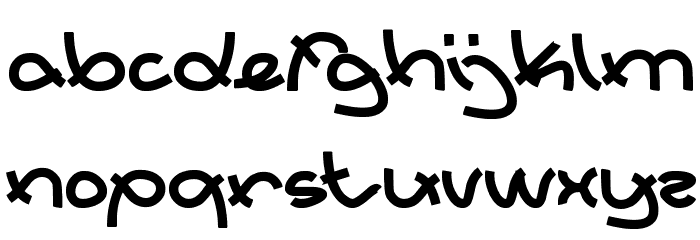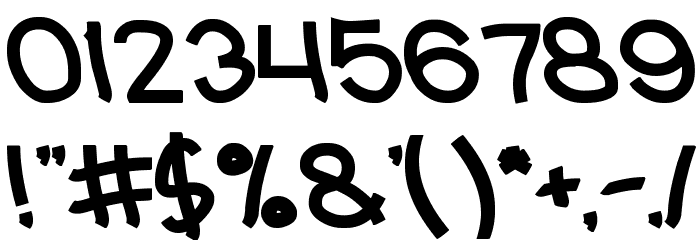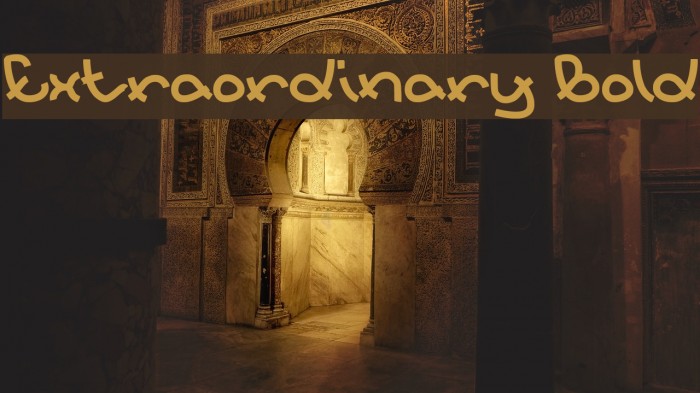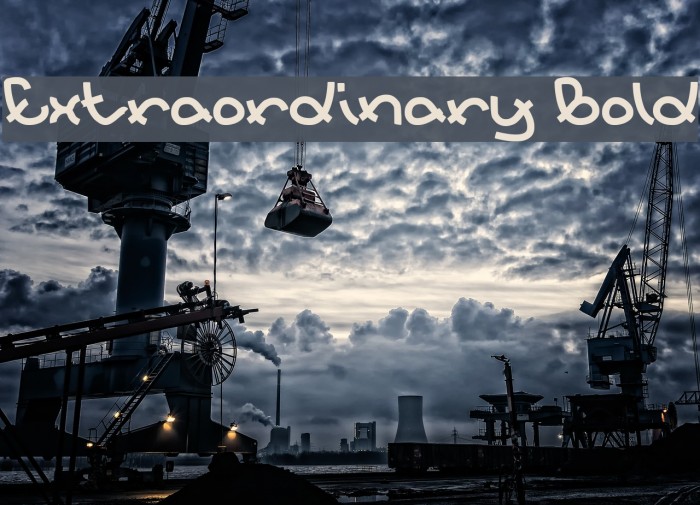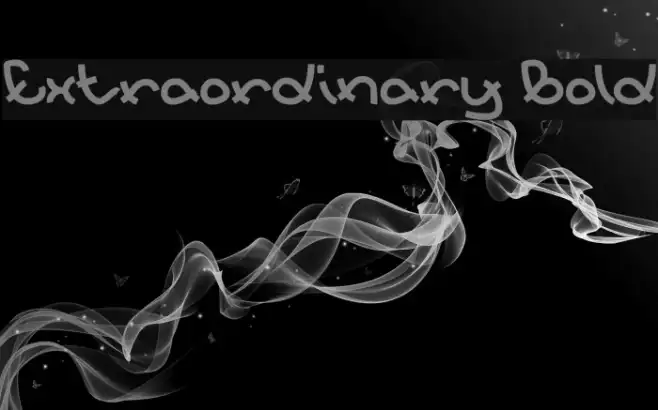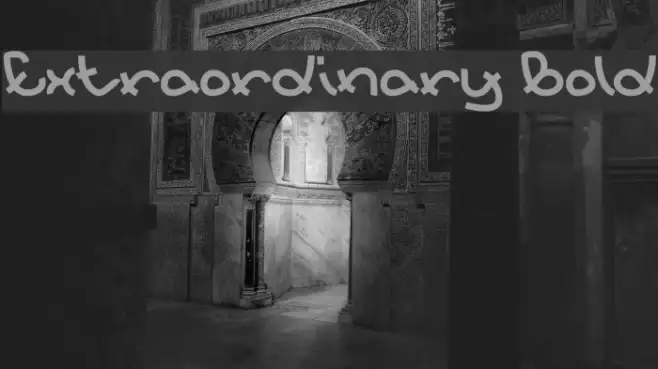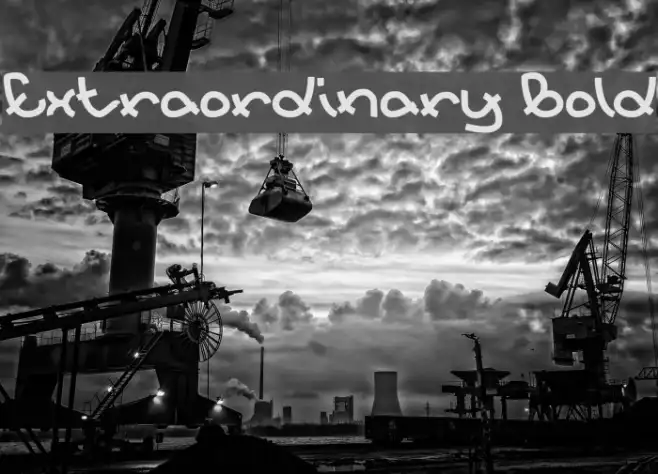
Extraordinary Bold Font
This playful and bold font features a handwritten style with a casual, energetic vibe. The letters are rounded and slightly irregular, giving them a friendly and approachable appearance. The strokes are thick and consistent, providing a strong visual impact. The font maintains a uniform weight throughout, with a slight tilt that adds to its dynamic character. The spacing between characters is relatively tight, enhancing its cohesive look. This font is ideal for projects that require a fun and informal touch, such as children's books, posters, or playful branding materials.
A bold, playful handwritten font with a casual and energetic style.
- Proposed Projects: Ideal for children's books, playful branding, posters, and informal invitations.
- Character Spacing: Tight
- Overall Style: Playful